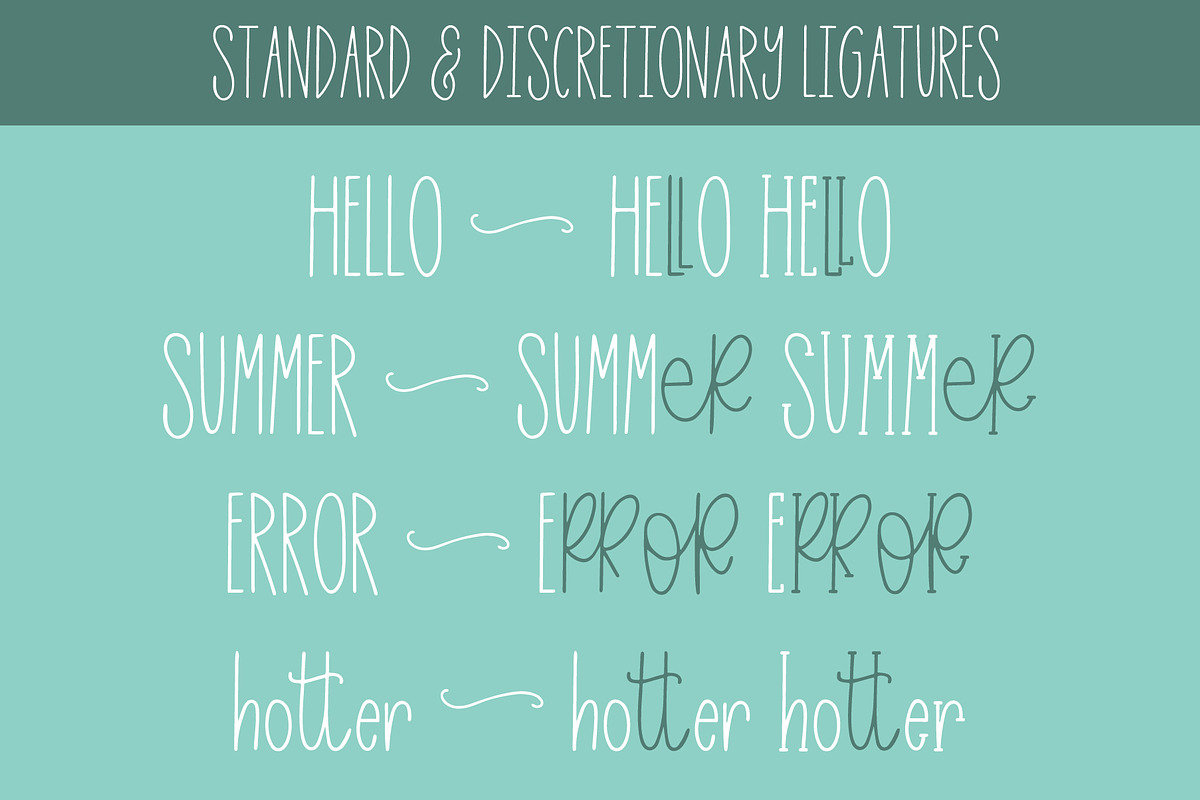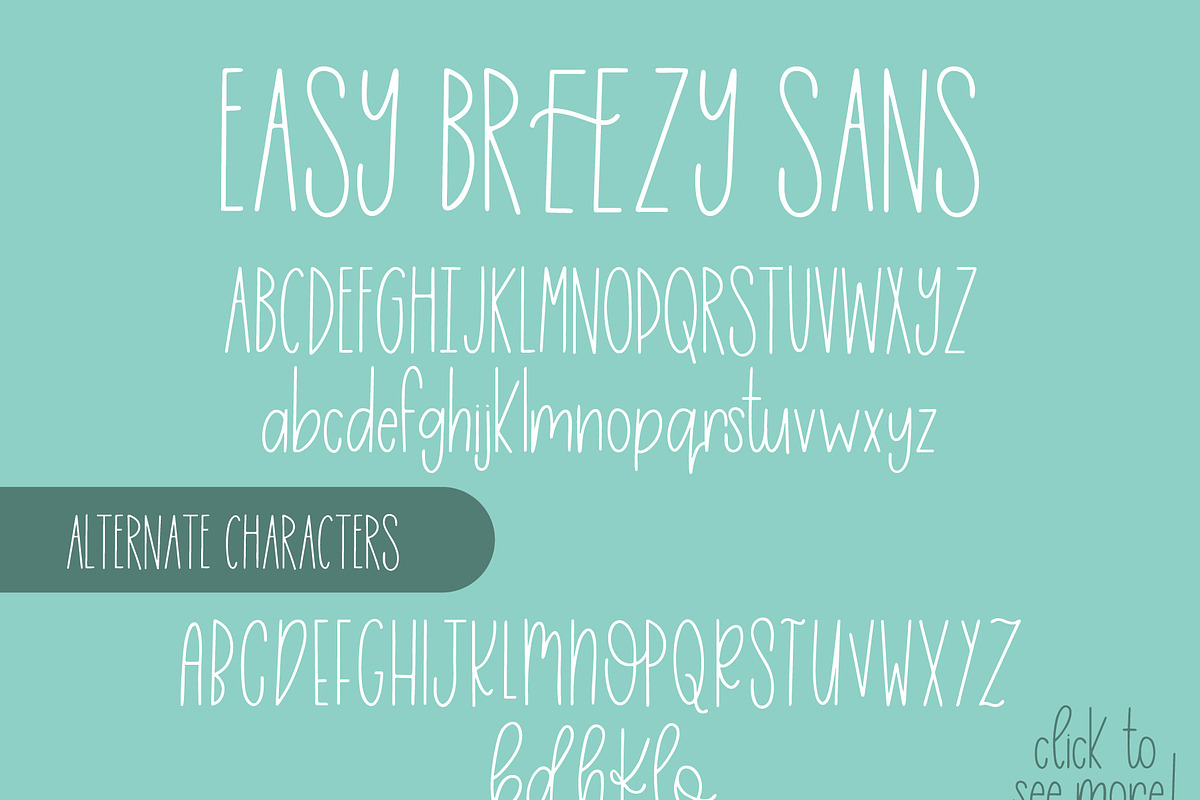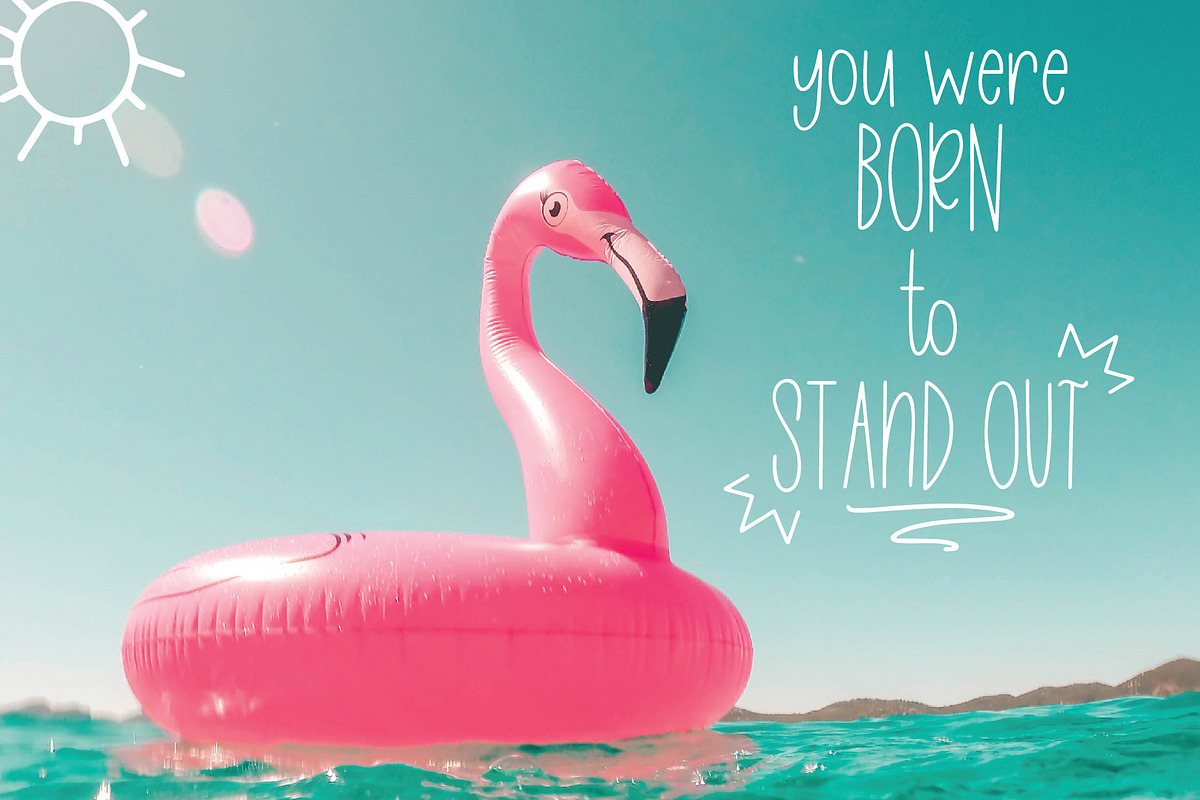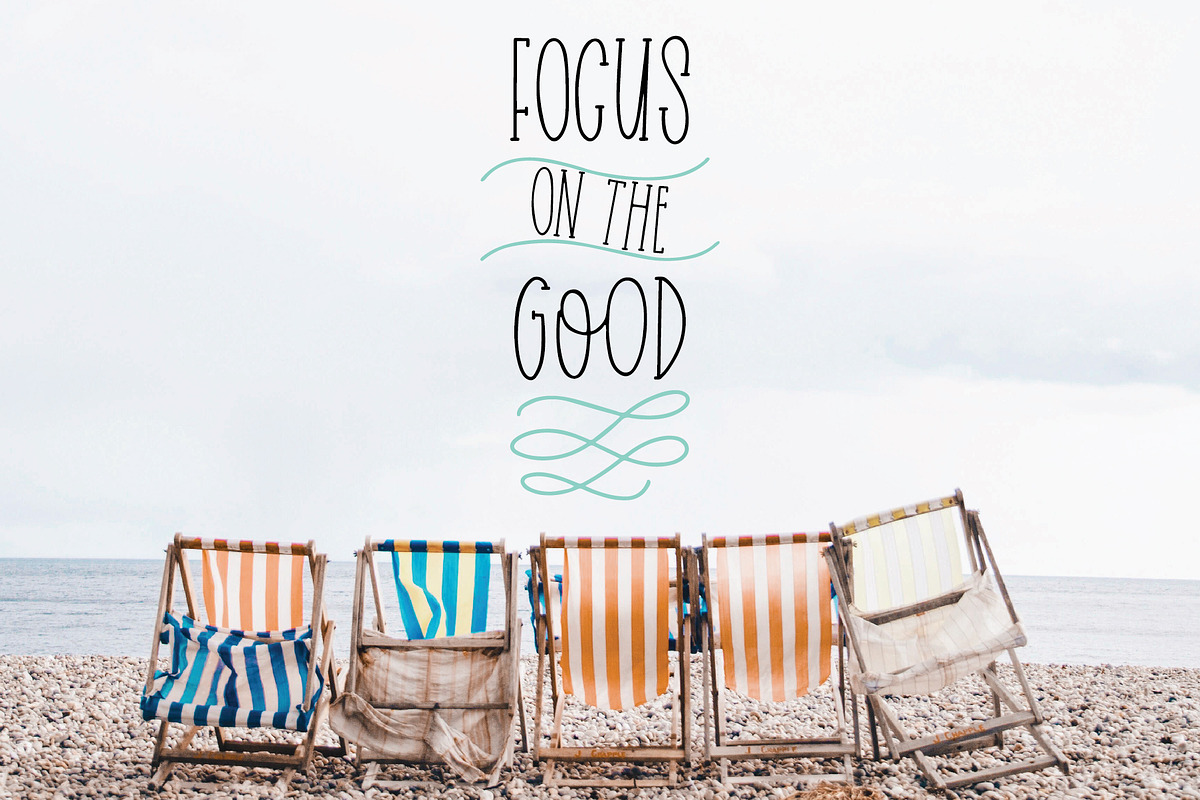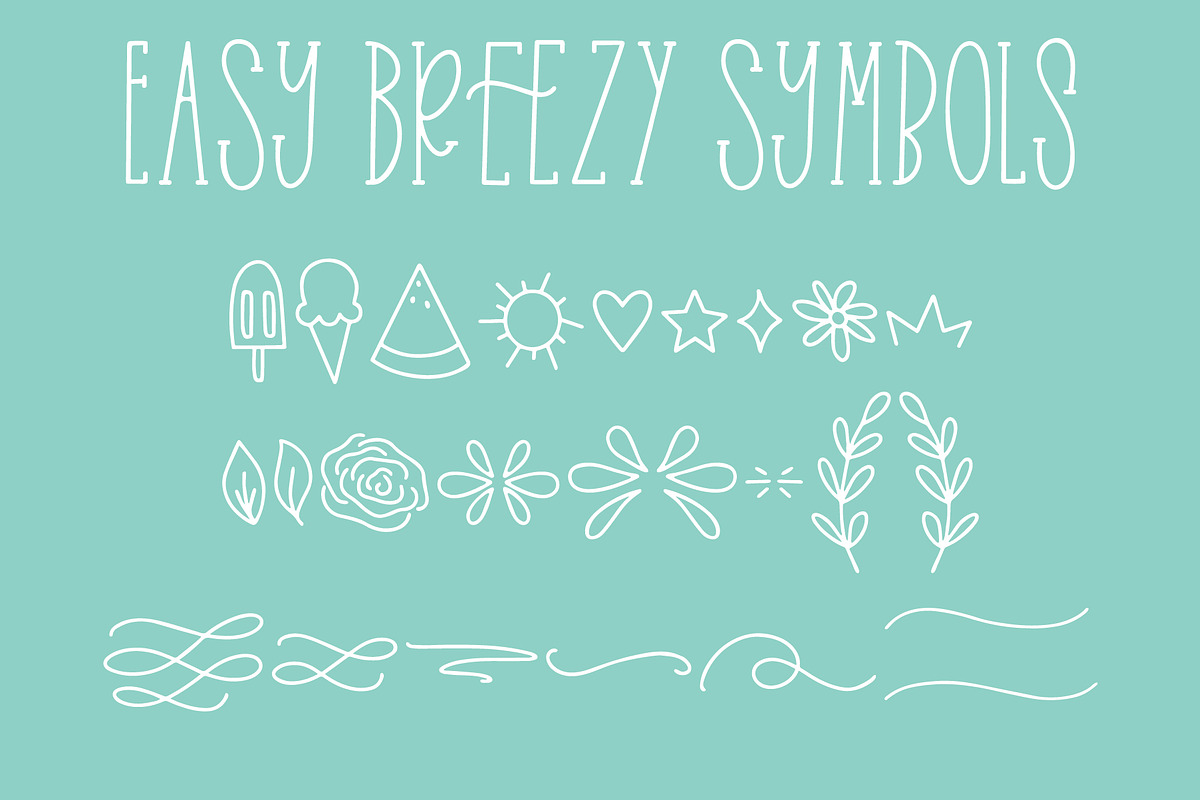
Easy Breezy Trio, Sans Serif Doodle
Easy Breezy is a fresh & modern handwritten font. Easy Breezy comes with a Sans Serif, a Serif, and a Doodle/Symbols font. The Sans and the Serif each come with two sets of uppercase letters, as well as ligatures, alternate characters, and more.
Easy Breezy Sans Serif Features:
- A full set of upper and lowercase letters
- 9 Standard Ligatures
- 3 Discretionary Ligatures
- 32 alternate characters (A-Z, b, d, h, k, l, o, &)
- Number 0-9, punctuation
- Multilingual support for Western European languages including: Danish, Dutch, French, German, Spanish, Swedish, and more!
Easy Breezy Serif Features:
- A full set of upper and lowercase letters
- 9 Standard Ligatures
- 3 Discretionary Ligatures
- 32 alternate characters (A-Z, b, d, h, k, l, o, &)
- Number 0-9, punctuation
- Multilingual support for Western European languages including: Danish, Dutch, French, German, Spanish, Swedish, and more!
Easy Breezy Symbols Features:
- 26 different symbols using the A-Z letters